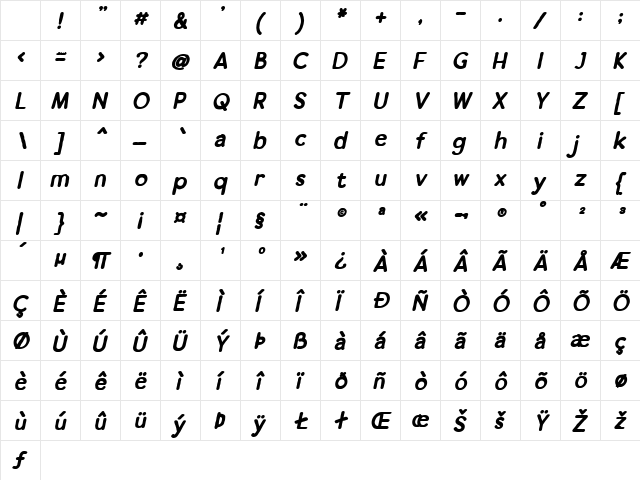
Complete Thirty Sans Bold Italic glyph index. Displaying only characters natively supported by Thirty Sans Bold Italic font.
Thirty Sans is a composed and adaptable typeface that performs quietly and consistently across a wide range of design contexts. The slanted form adds forward momentum and visual energy. Its bold stroke weight gives it real presence on the page.
Pro Tip: Use Thirty Sans for emphasis, pull quotes, and subheadings where its slanted energy can add rhythm to the layout.